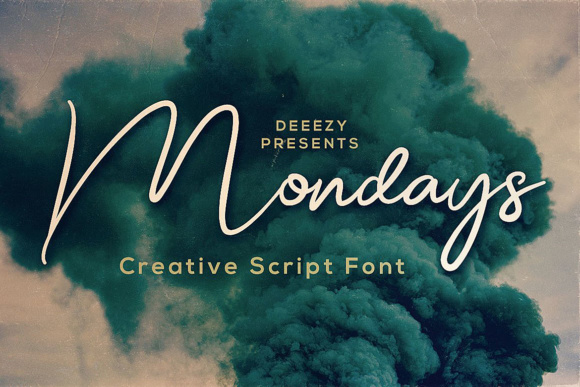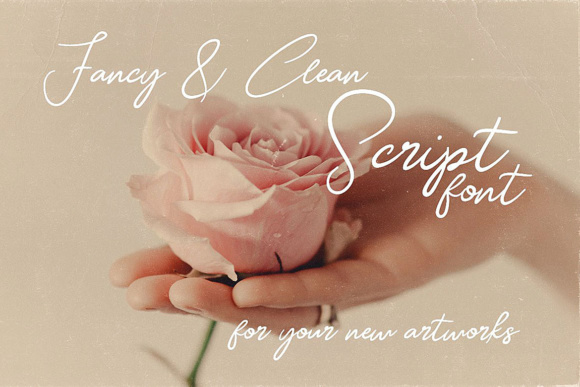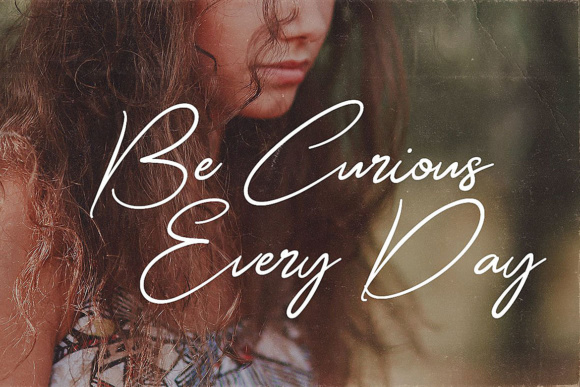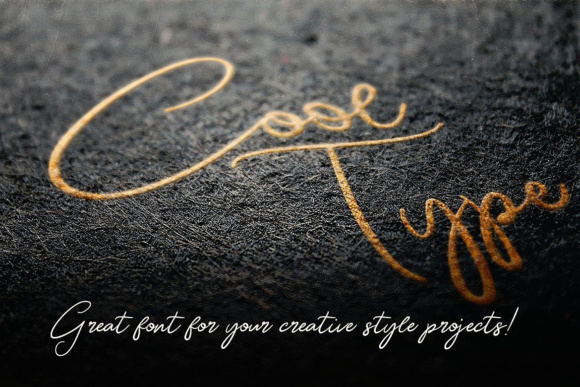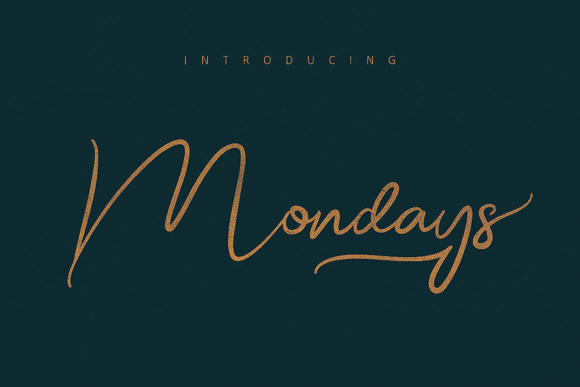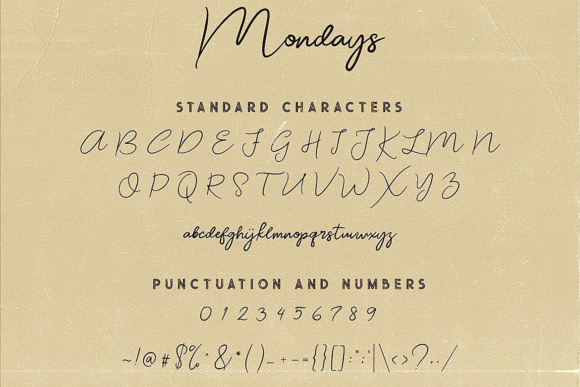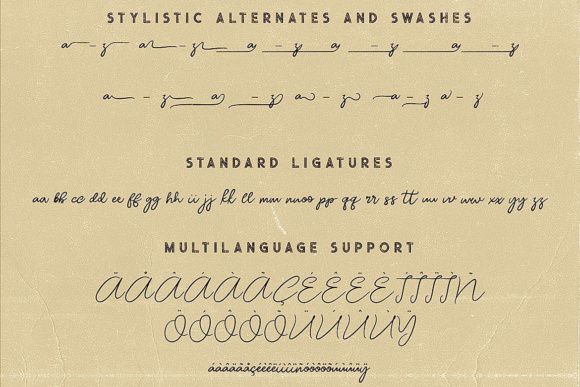
Mondays Script Font
About Mondays Script Font
The Mondays is a clean and fancy style script font. It has a good readability but yet stays very elegance. It can be used for every design that needs a feminine touch.